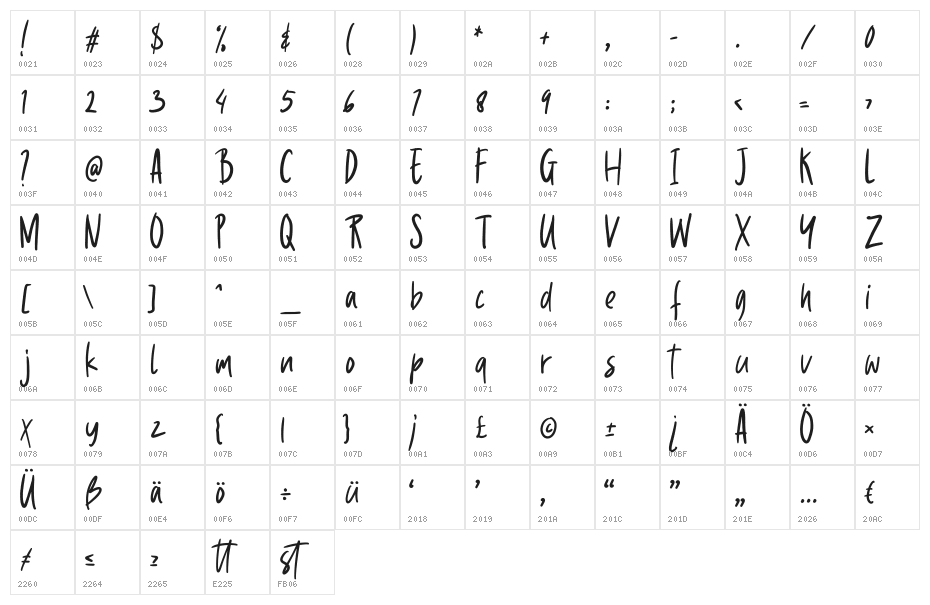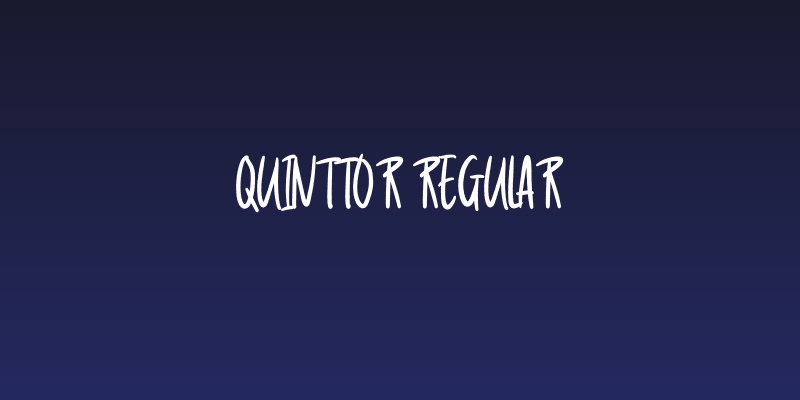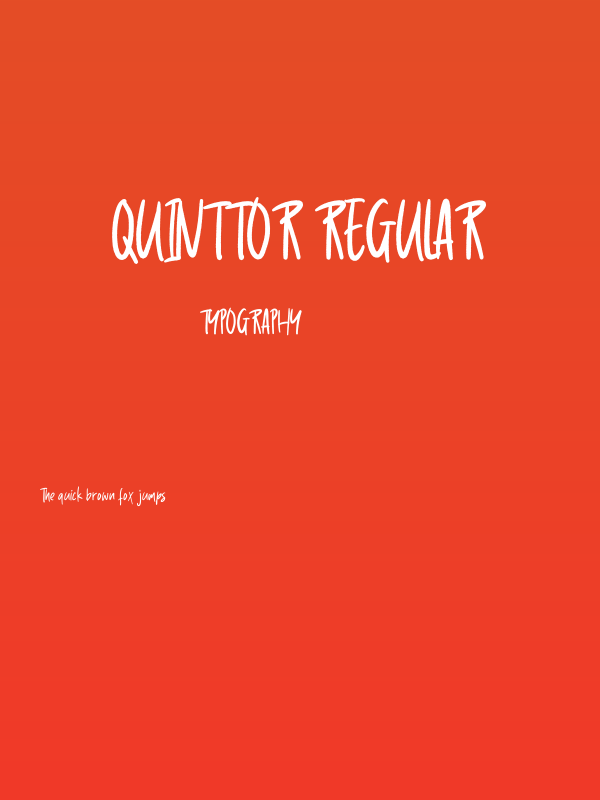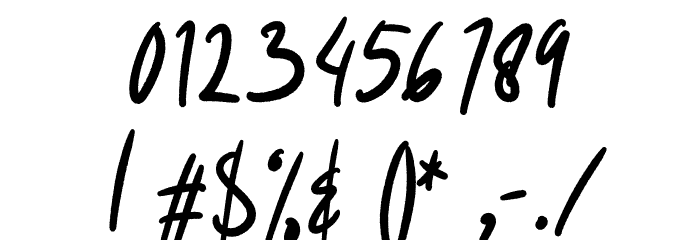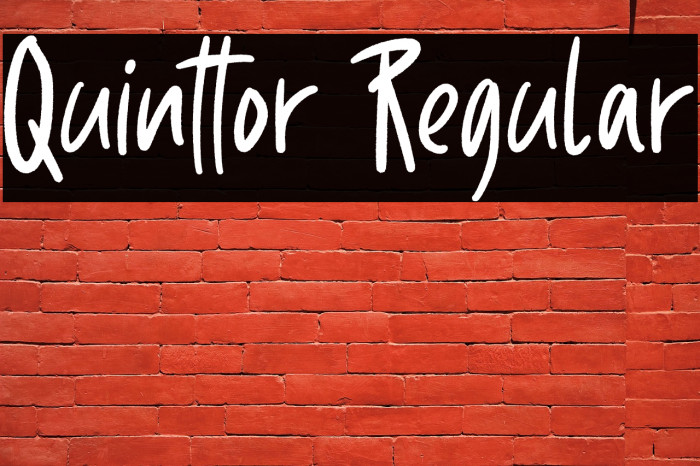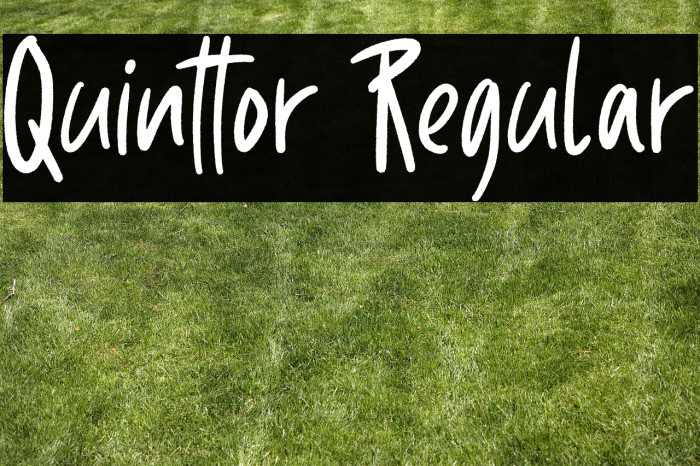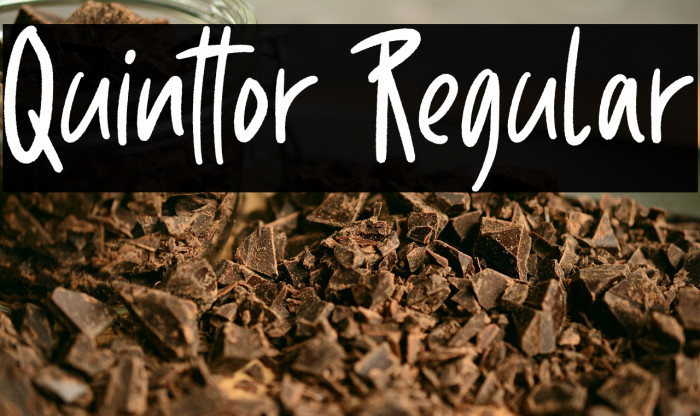
Quinttor Regular Font
Quinttor Regular Description
This font features a bold and expressive handwritten style, characterized by its tall, narrow letterforms and slightly irregular strokes. The uppercase letters are particularly elongated, giving a dynamic and energetic feel. The lowercase letters maintain a consistent flow, enhancing readability while retaining a casual, artistic flair. The numbers and special characters follow the same stylistic approach, ensuring a cohesive look across all text. This font's unique personality makes it suitable for creative projects that require a personal touch.
| Proposed Projects | Ideal for branding, posters, invitations, and social media graphics that need a personal, artistic touch. |